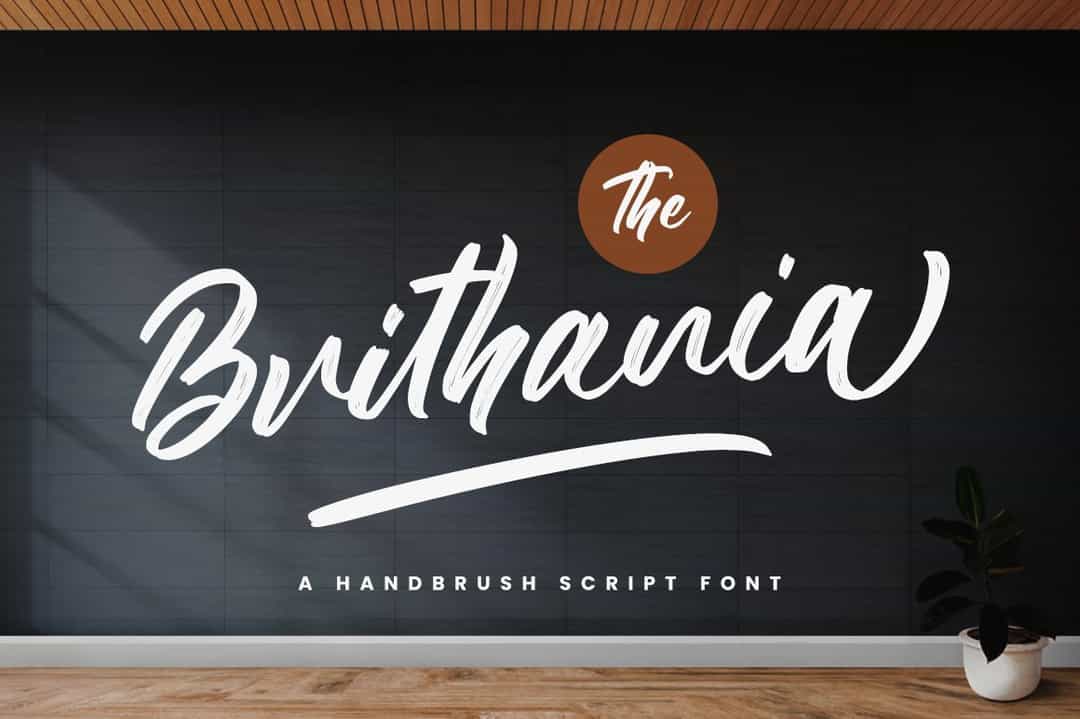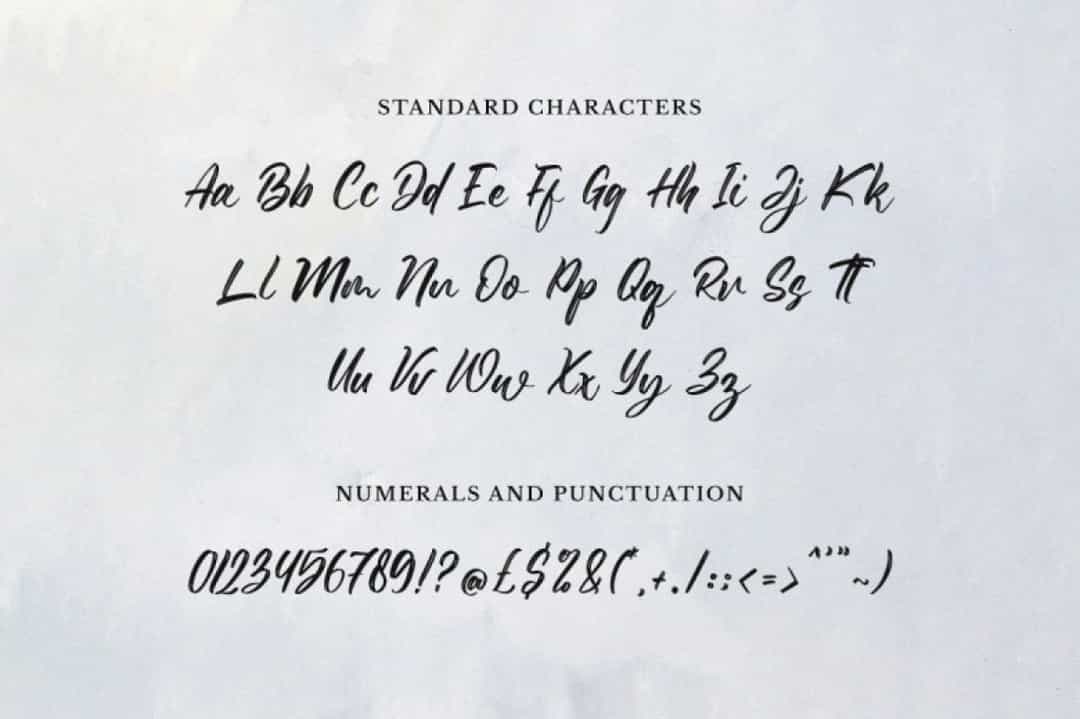
The Brithania font is an elegant and delicate handwritten font with sweet swashes that lend it a sophisticated aesthetic. Perfect for letterheads, titles and stationery.